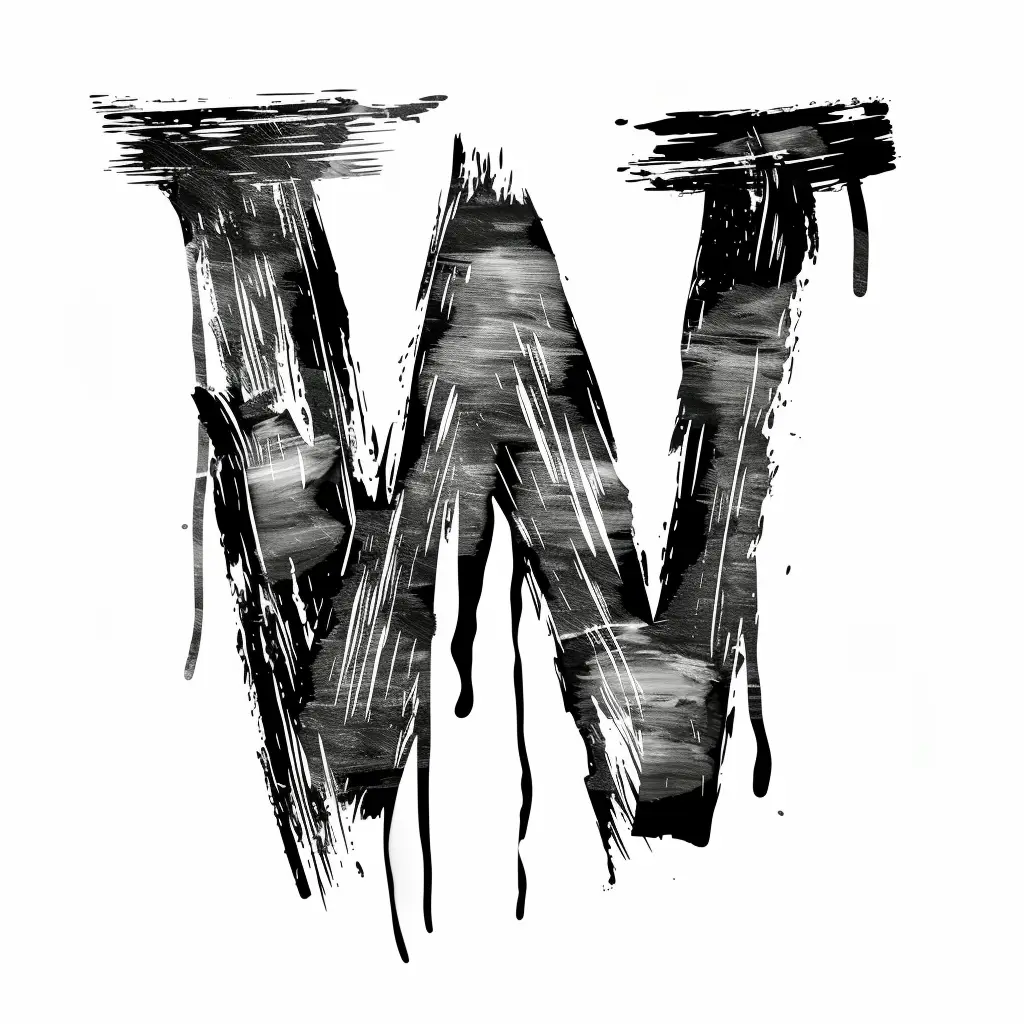
The image features a stylized, hand-painted letter "W" rendered in black and white. The design employs a rough, textured brushstroke technique with dripping paint effects, creating a dynamic, artistic appearance. The monochromatic color scheme emphasizes the bold, expressive lines and uneven edges of the letter.